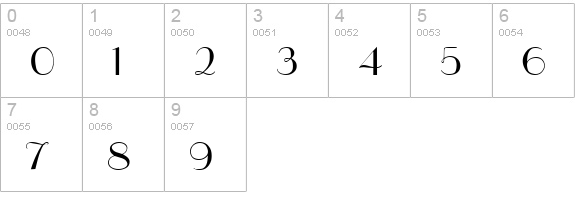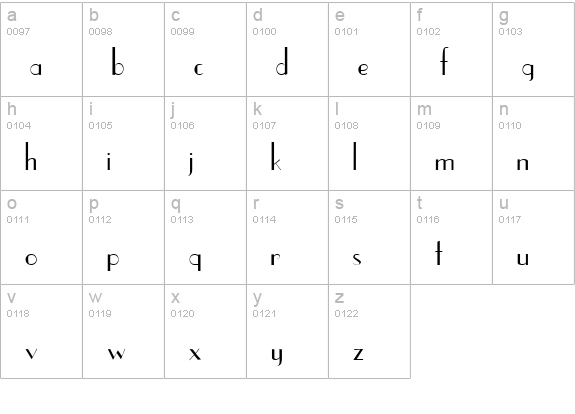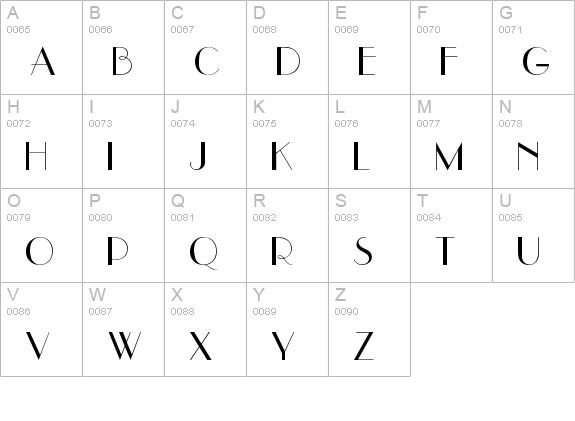
UpperEastSide Regular is the standard, neutral variant in the UpperEastSide typeface family \xE2\x80\x94 well suited to general body text, paragraphs, and standard typographic work.
UpperEastSide Regular is a versatile and elegant font that exudes sophistication and class. This font is perfect for any project that requires a touch of refinement and modernity. Its clean lines and balanced proportions make it easy to read and appealing to the eye. UpperEastSide Regular is a free font that is available for download at FontsMarket.com. This means that you can effortlessly add a touch of luxury to your designs without spending a penny. With its wide range of characters and glyphs, UpperEastSide Regular offers endless possibilities for creative expression. Whether you are designing a logo, creating a stunning advertisement, or crafting a beautiful website, UpperEastSide Regular is the perfect choice. Its timeless appeal and subtle elegance will elevate your projects to new heights, leaving a lasting impression on your audience. With UpperEastSide Regular, you can effortlessly create a sense of sophistication and luxury in your designs. Its versatility allows it to be used in a variety of contexts, from fashion and beauty to business and corporate branding. This font will truly make your work stand out from the crowd. Download UpperEastSide Regular for free at FontsMarket.com and unlock the potential of this exquisite font. Elevate your designs and captivate your audience with the timeless elegance of UpperEastSide Regular.